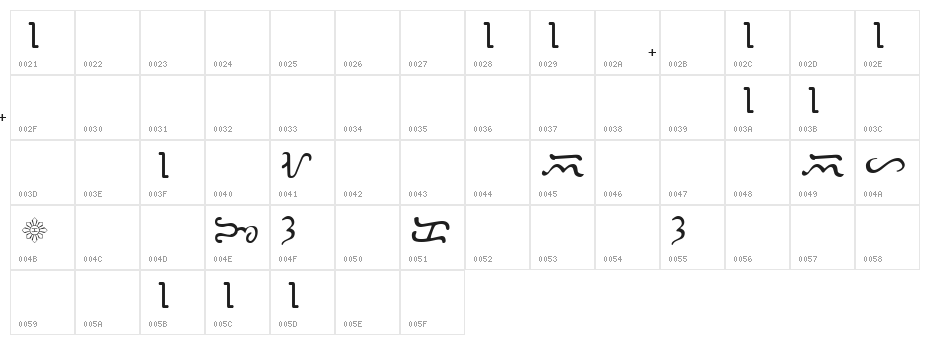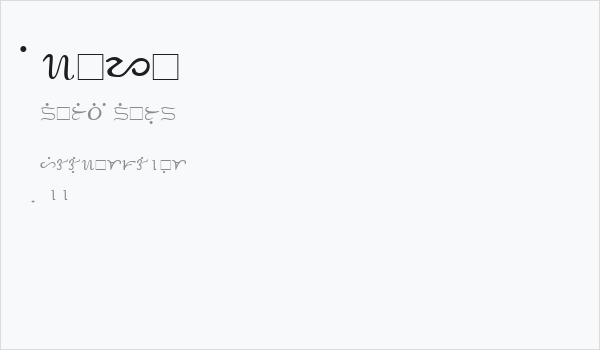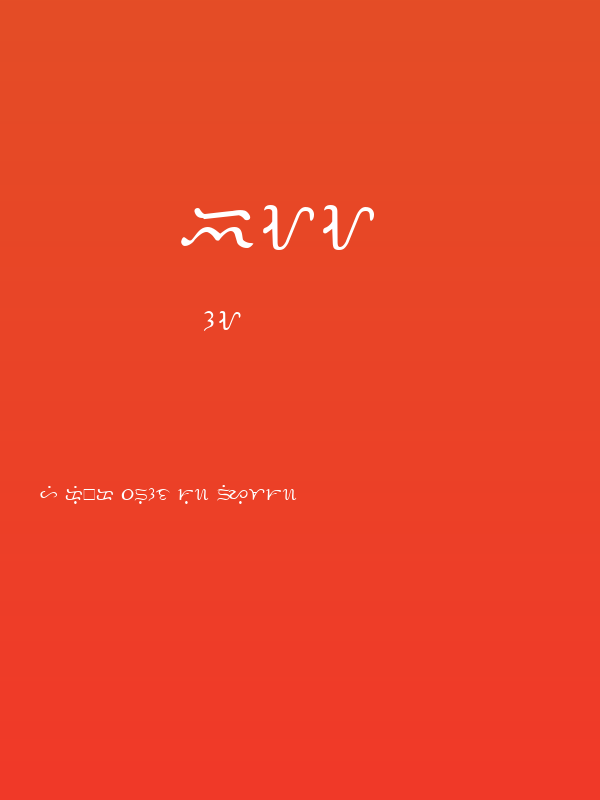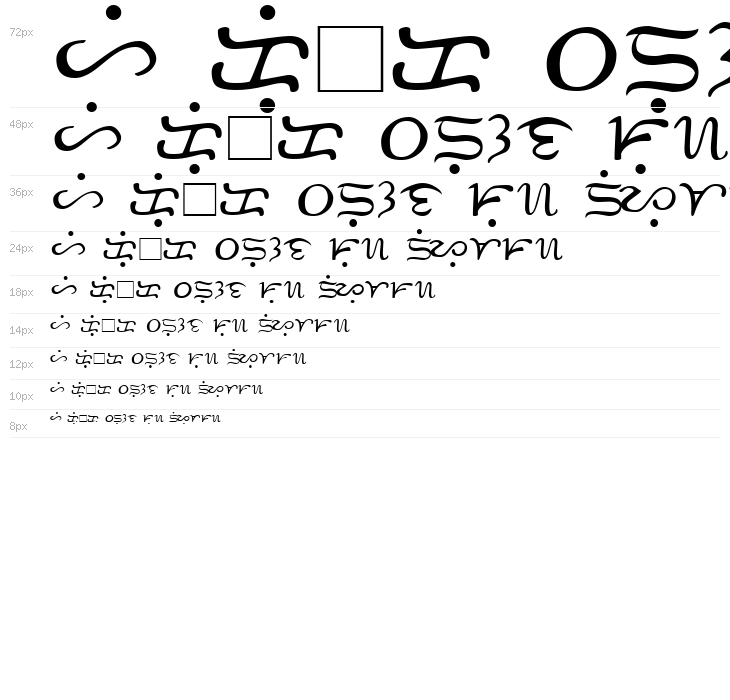
Bisaya 1880 Font
Bisaya 1880 Description
This script features a unique and decorative style reminiscent of traditional calligraphy. The characters are fluid and curvilinear, with a strong emphasis on artistic flair. The strokes vary in thickness, creating a dynamic and visually engaging appearance. The script includes intricate details and embellishments that add to its ornate nature. It is not a standard Latin alphabet, suggesting it may be used for specific cultural or historical contexts. The overall design is both elegant and complex, making it suitable for decorative purposes.
| Use Case | Decorative elements, cultural projects, artistic designs. |
| Proposed Projects | Ideal for cultural or historical projects, artistic designs, or decorative elements in graphic design. |